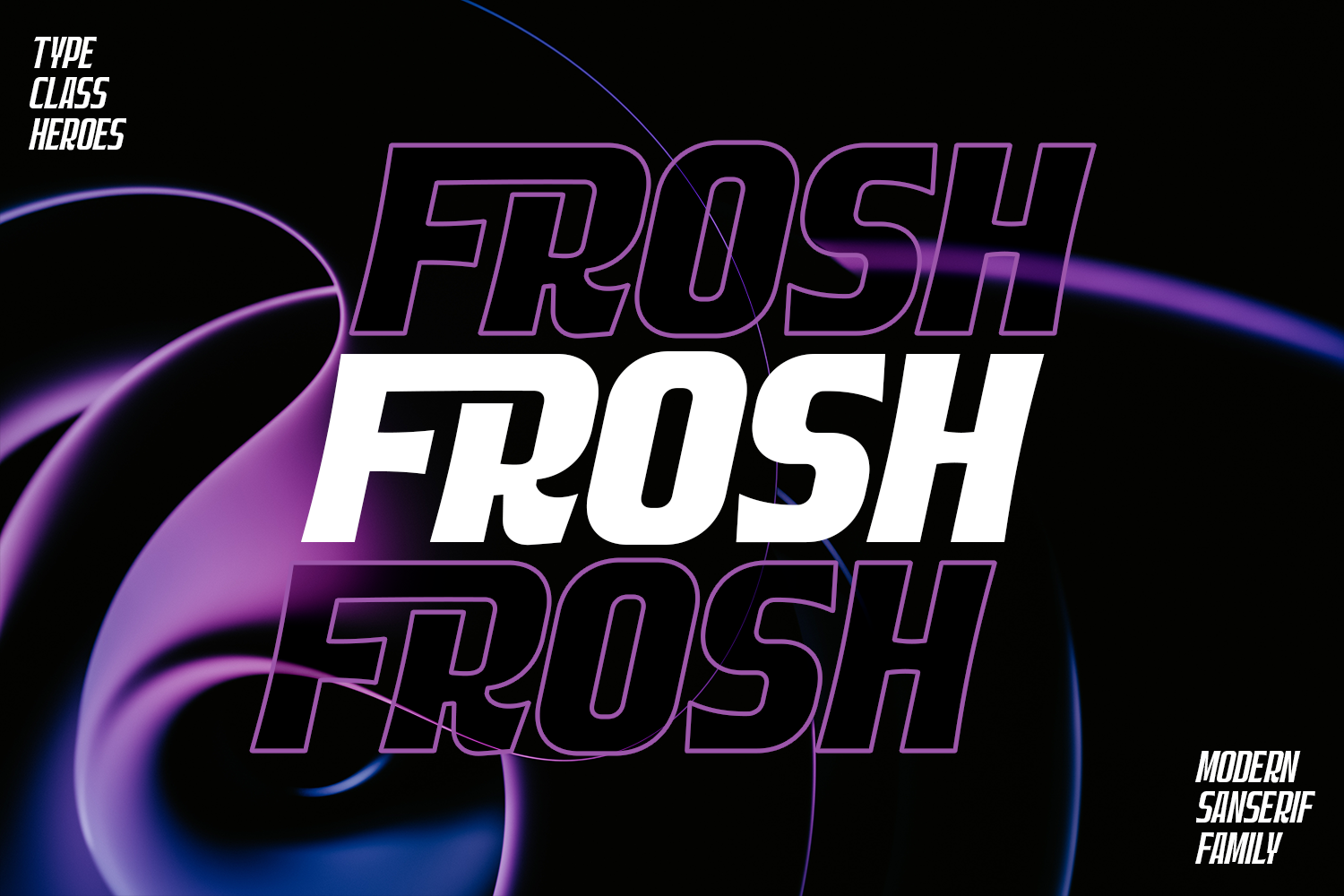
Frosh Font Family
Introducing Frosh is a sans family modern style with stylistic, alternates, ligatures and supports multilingual languages. Comes in weights with various width and weight that you can explore and combine. Use this font family for any branding, product packaging, invitation, quotes, t-shirt, label, poster, logo etc.